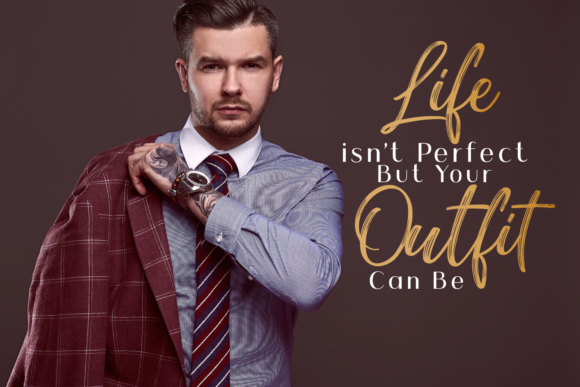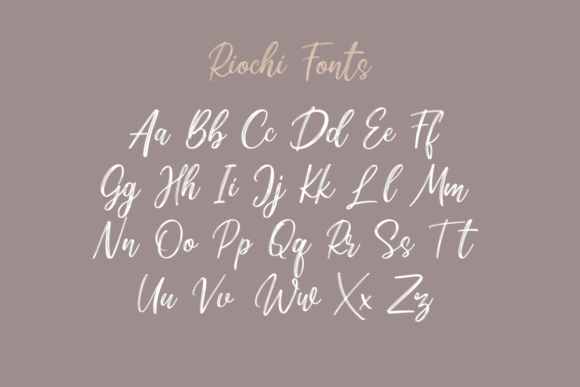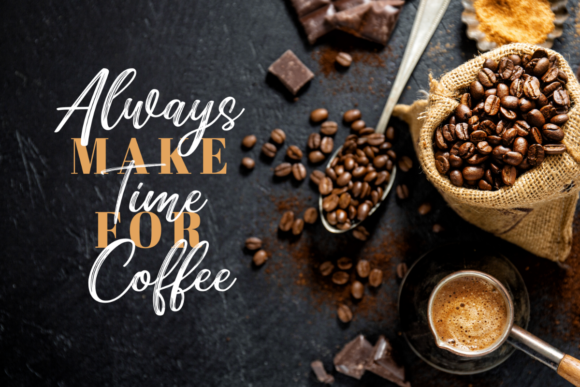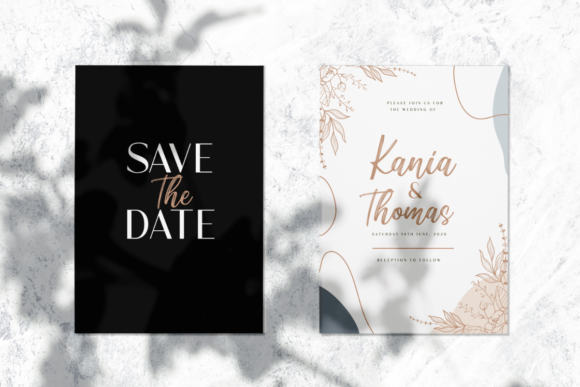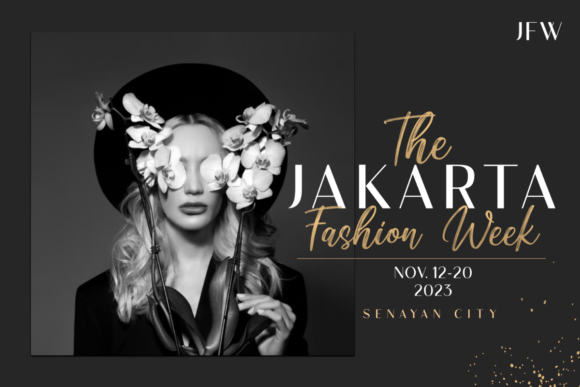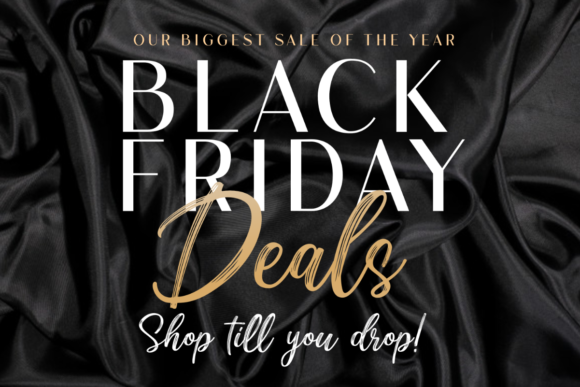
Unlocking the Power of Riochi Font
You’ve spent hours perfecting your creative project, pouring your heart and soul into every detail. But there’s something missing – that extra oomph that takes your design from good to great. For many designers, this missing piece is a high-quality font that elevates their work to new heights. Enter the Riochi Font, a stunning duo font that combines the clean lines of a sans serif with the elegant flair of a script.
With its incredibly versatile design, the Riochi Font is the perfect addition to any creative project. Whether you’re working on a logo, brochure, or social media graphic, this font is sure to make your design shine. And the best part? It’s available for free download, making it an accessible design resource for designers of all levels.
Key Features of Riochi Font
- Characterized by its elegant and sophisticated style, perfect for luxury branding and high-end designs.
- Includes a range of glyphs and characters, suitable for both print and digital applications.
Honest Review: Riochi Font
I recently had the chance to work with the Riochi Font for a creative project, and I must say it’s been a game-changer. The font is a fantastic design resource that can elevate any design to the next level.
What works well about the Riochi Font is its high quality and versatility. It comes with a transparent background, making it easy to use in various design scenarios. The font is also available for free download, which is a huge plus for designers on a budget.
- ✨ High-quality design with transparent background
- ✨ Versatile and suitable for various design projects
However, I did encounter some limitations while using the Riochi Font. The font doesn’t support bold or italic styles, which can be a drawback for designers who require more flexibility in their designs.
- ⚠️ Limited font styles (no bold or italic)
Overall, I’m impressed with the Riochi Font, and I would definitely recommend it to designers who are looking for a high-quality, free design resource. With a little creativity, the font can help you achieve stunning results for your design project.
Riochi Font
The Riochi Font is a high-quality, free download design resource ideal for creative projects. Its transparent background makes it versatile and easy to use in various applications.
Tips for Getting the Most Out of Riochi Font
To get the most out of the Riochi Font, experiment with different font sizes, colors, and arrangements to create visually appealing designs. Also, consider combining the font with other design resources for a cohesive look.
The Riochi Font is commonly used in creative projects such as logos, brochures, posters, and social media graphics. Its high-quality design and transparent background make it an ideal choice for designers and non-designers alike.
Alternatives to Riochi Font
Aleo Font is a beautiful, high-quality sans-serif font that is perfect for creative projects that require a clean and modern look. It’s a great design resource for designers who want to add a touch of elegance to their work. Aleo Font is available for free download with a transparent background, making it easy to use in various design applications.
Aleo Font compares to Riochi Font in its modern and elegant feel, but it has a more subtle and refined look. It’s ideal for use in logos, branding materials, and other design elements where a sophisticated look is desired.
Montserrat Font is a geometric sans-serif font that is designed for use in digital and print applications. It’s a great design resource for designers who want to add a touch of urban grit to their work. Montserrat Font is available for free download with a transparent background, making it easy to use in various design applications.
Montserrat Font compares to Riochi Font in its modern and edgy feel, but it has a more industrial and urban look. It’s ideal for use in logos, branding materials, and other design elements where a bold and modern look is desired.